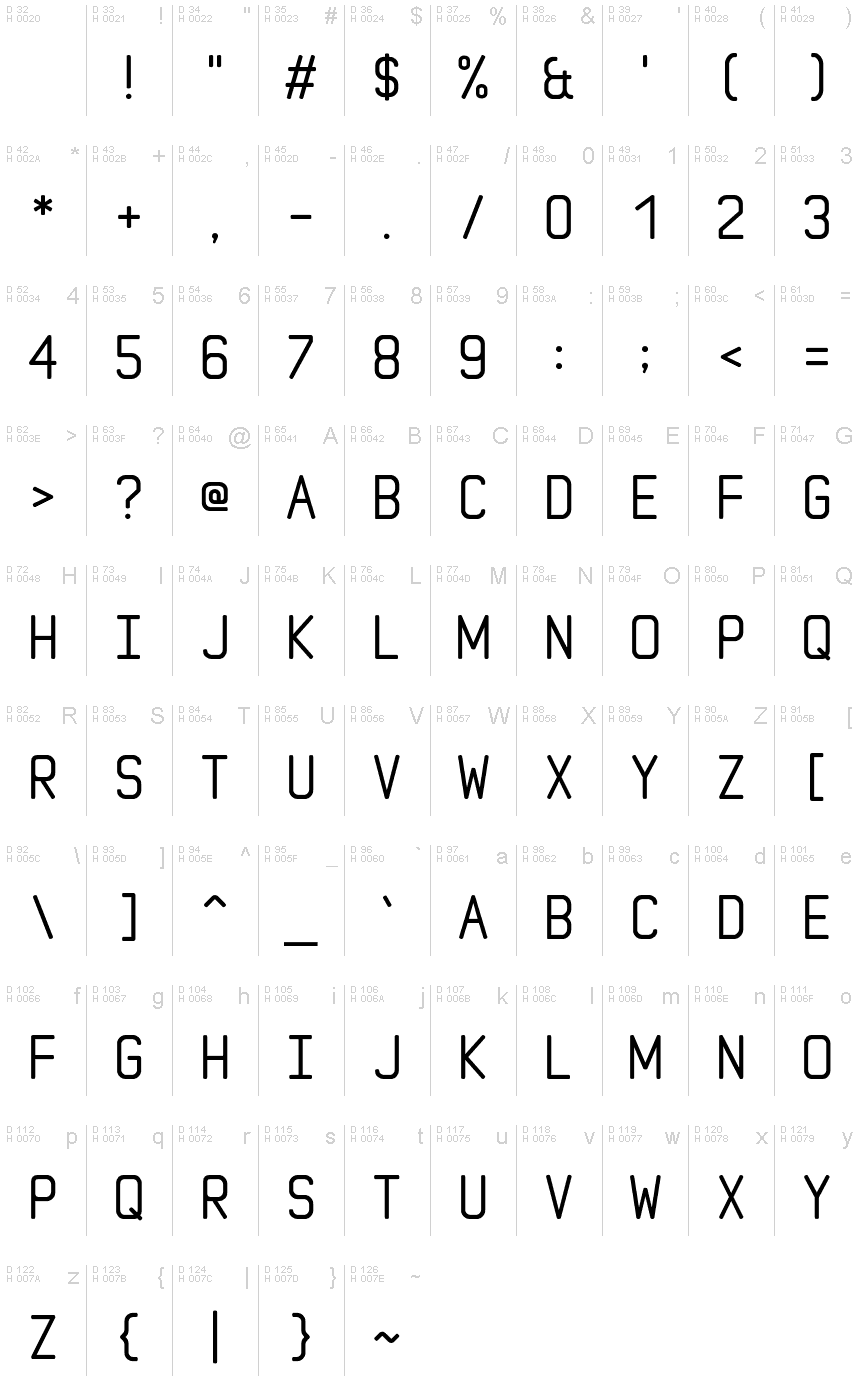
MoonGloss Display Medium
Moongloss was created to be a display font. A font that you would use to display the date, time, or little bits of information. There are many fonts out there that are meant for things for this, but none quite like this font.
So what is Moongloss? It's meant to fulfil the following design criteria:
1. To look reasonably futuristic, like it would feel at home in a sci-fi movie
2. To look polished and elegant. There are fonts that meet criteria, but fail at this regard
3. To be as monospaced as possible but still look good. Let's say you made a clock display with this font. A thin number '1' vs a fat number '8' will mess up the aesthetics of your display when minutes change and cause your entire clock to shift to the left or right. As such, numbers are strictly monospaced and are the same size in this font, but letters are variably sized to maintain an even appearance.